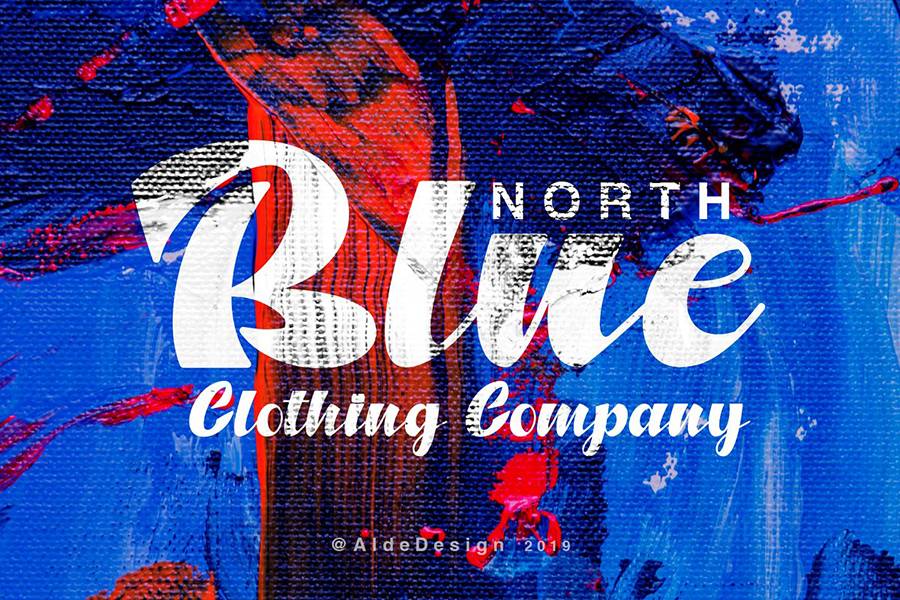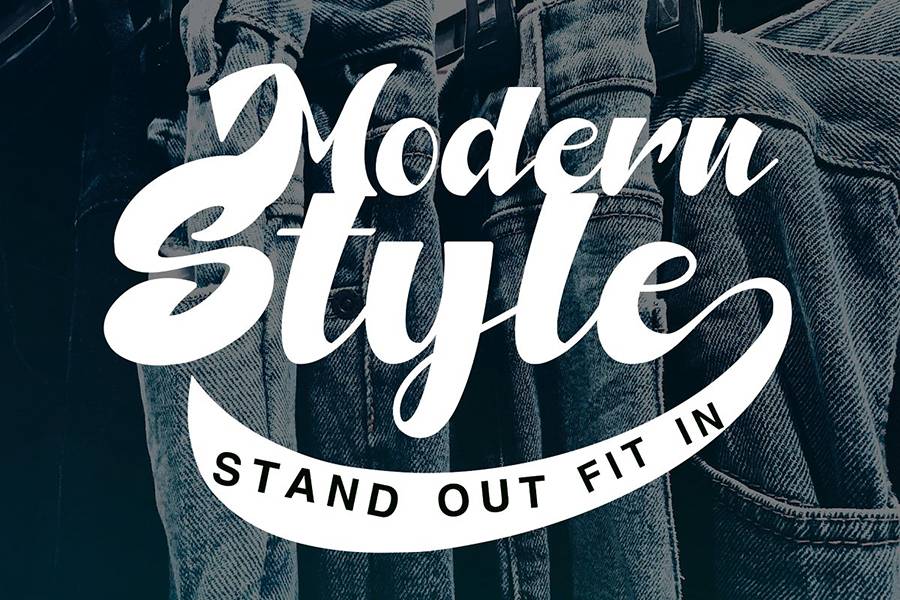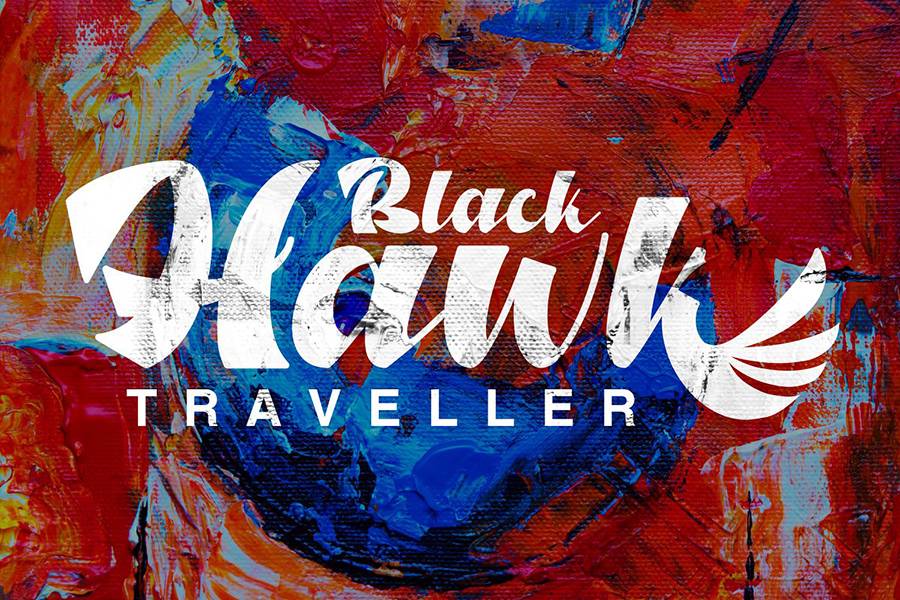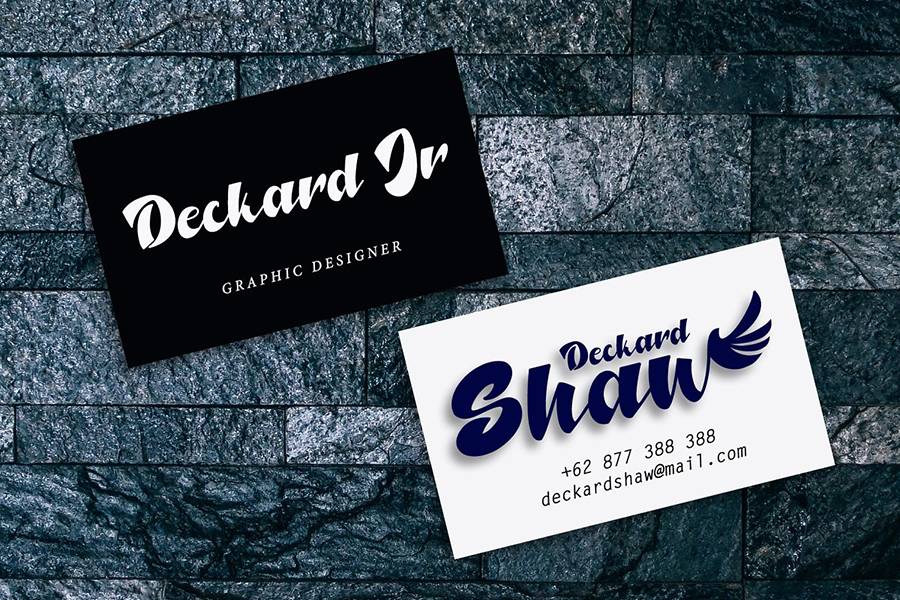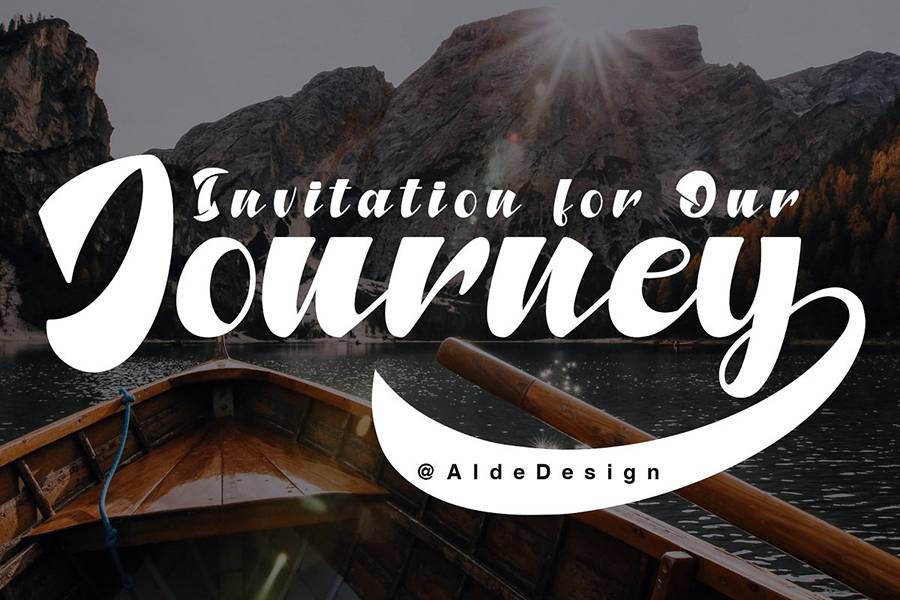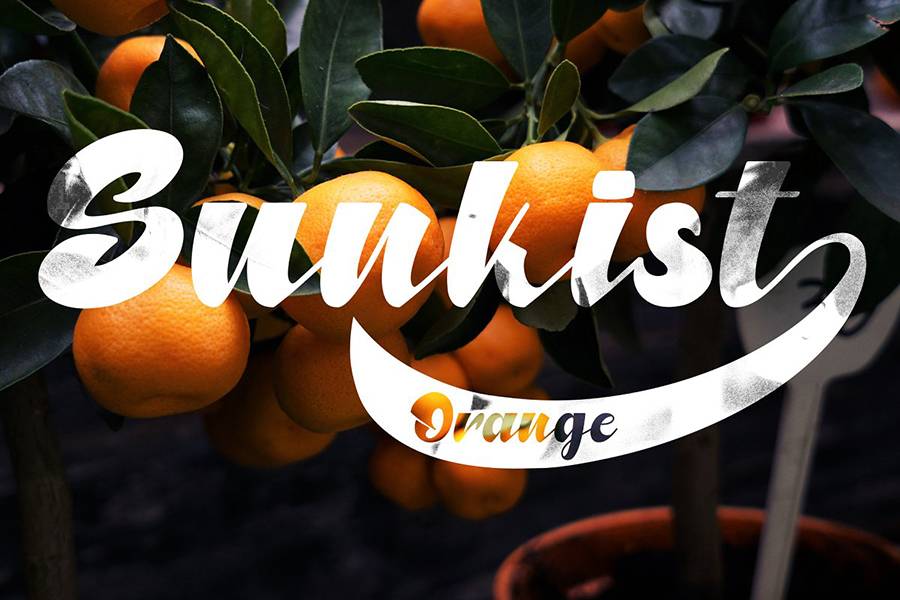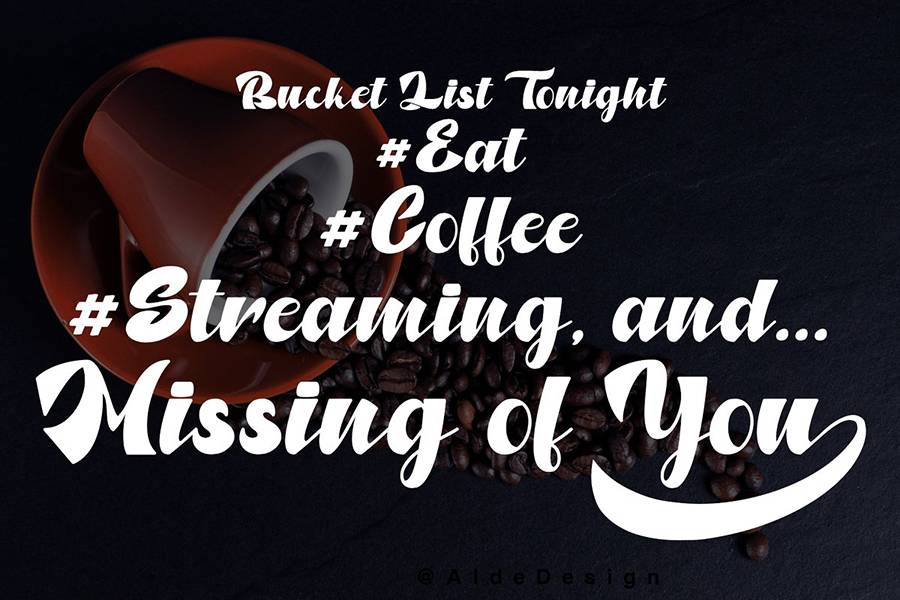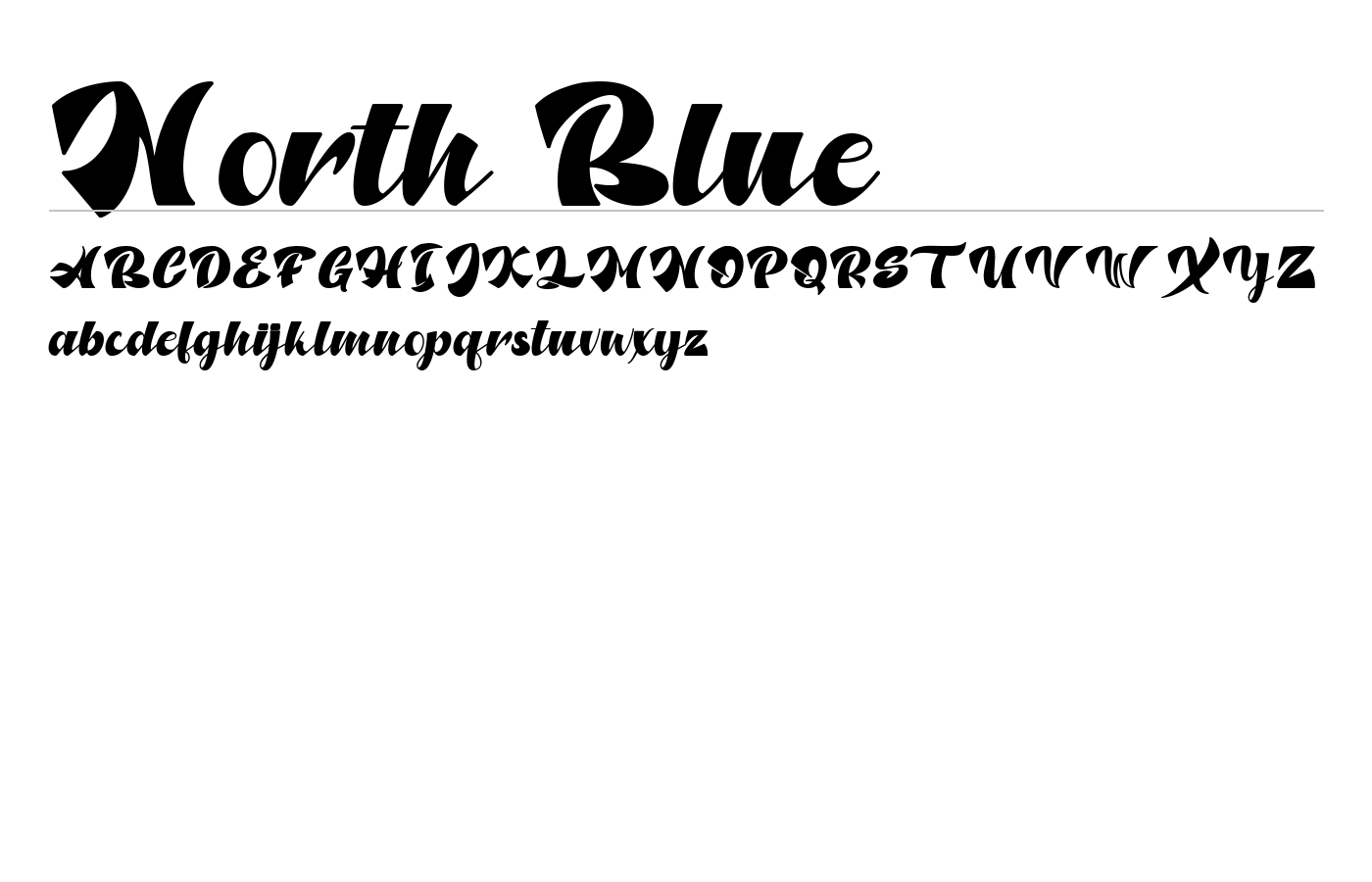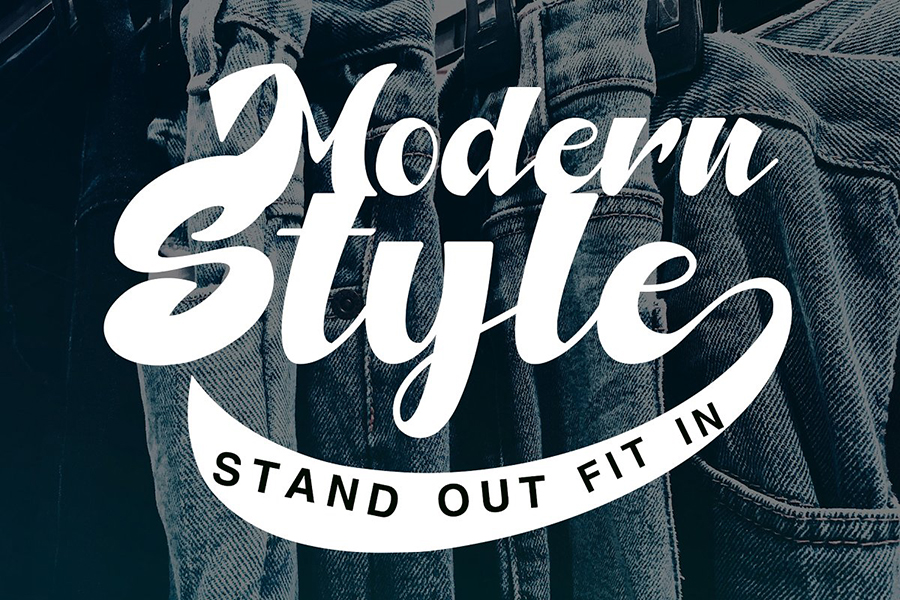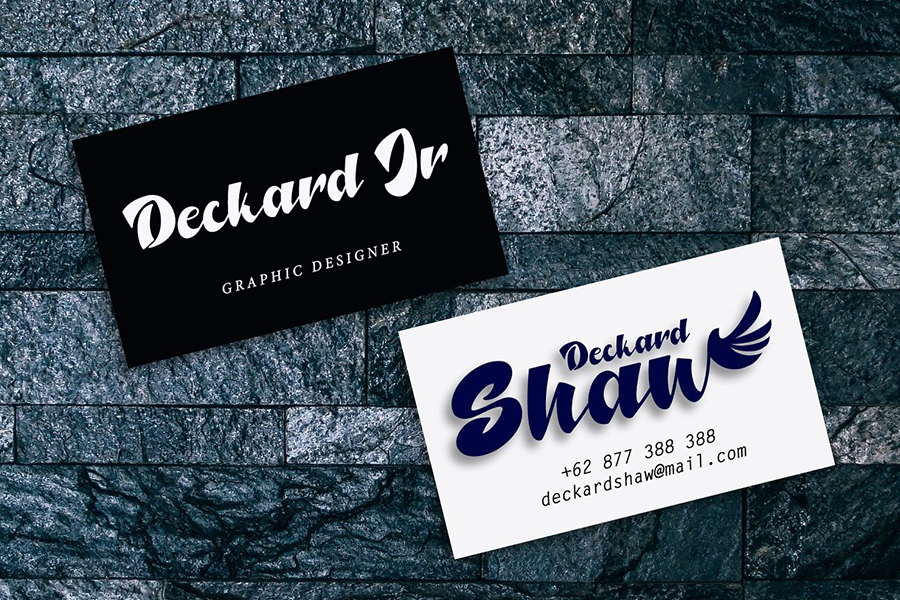
North Blue Bold Script is a striking and bold script font characterized by its thick, brush-like strokes and lively, flowing letterforms. It combines a strong presence with elegant curves, making it perfect for eye-catching logos, headlines, and creative branding that require a mix of vintage charm and modern flair. This font works well in designs that aim to convey confidence and artistic energy while maintaining readability.
North Blue Bold Script Font
About North Blue Bold Script Font
| Font family | North Blue Bold Script Font |
| Designer | Aldedesign 2019 |